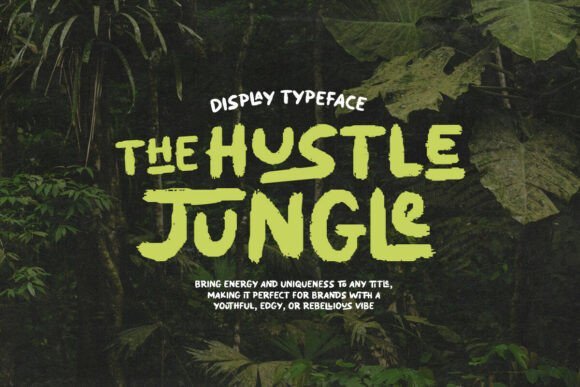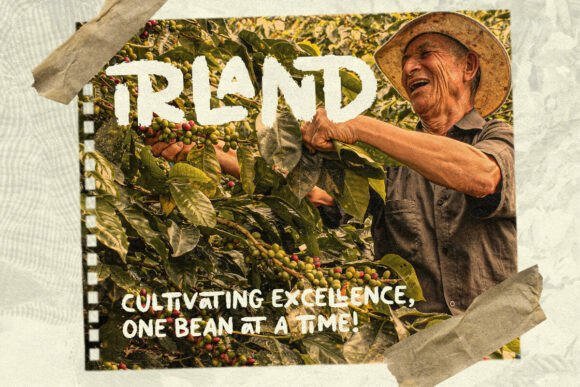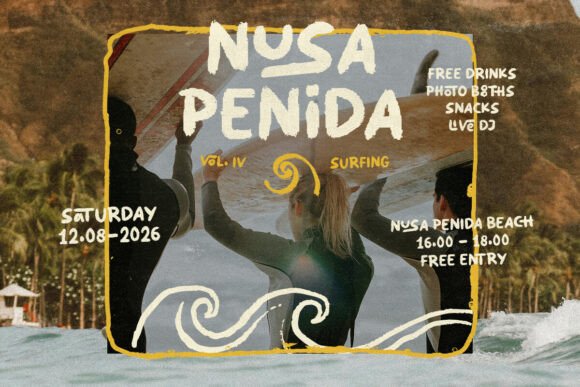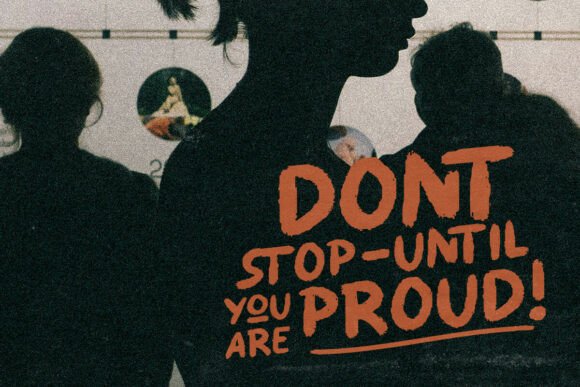
The Ultimate Rebellion in Typography: Introducing the Hustle Jungle Font
Have you ever found yourself scribbling down a wild idea on a piece of paper, the words spilling out of your pen as if they were bursting to get free? That’s the kind of raw energy that the Hustle Jungle Font embodies. This display typeface is the perfect tool for designers who want to unleash a storm of creativity and bring their brand to life.
Designed for the bold and the fearless, the Hustle Jungle Font is built for brands that aren’t afraid to take risks. With its jagged, brush-like edges, it’s the ultimate tool for streetwear labels, extreme sports graphics, and edgy music posters. By incorporating the Hustle Jungle Font into your design, you’ll be able to tap into its high-energy vibe and create a visual impact that demands attention.
Hustle Jungle Font Key Features
- Font Family: Hustle Jungle, a unique and energetic script font.
- Character Count: 300+ characters, including uppercase and lowercase letters, numbers, and punctuation marks.
- Unique Characteristics: The Hustle Jungle font features a dynamic, handwritten feel with a mix of bold and delicate strokes, making it perfect for creative and energetic designs.
Hustle Jungle Font Review
Overall, I’m impressed with the ✨ unique aesthetic of Hustle Jungle Font. It’s perfect for projects that need a touch of tropical vibes and a dash of playfulness. The font’s bold lines and eclectic style make it stand out from more traditional sans-serif fonts.
- ⚠️ Not suitable for formal or professional projects: The font’s playful style might not be suitable for projects that require a more serious or formal tone.
Despite these limitations, I think Hustle Jungle Font is a great addition to any designer’s toolkit. It’s perfect for projects that need a fun and energetic vibe, and it’s easy to use even for designers who are new to typography.
Use the Hustle Jungle Font for designs that require a bold, adventurous feel. This font is perfect for:
1. Travel brochures and adventure tourism websites.
2. Fitness and wellness branding.
3. Outdoor gear and apparel advertising.
Alternative Fonts to Hustle Jungle Font
The Great Vibes Font is a modern, cursive script font that is perfect for creating a fun and energetic vibe. It’s ideal for use in headings, titles, and quotes. It’s more refined and elegant compared to Hustle Jungle Font, which is more playful and bold.
The Playfair Display Font is an elegant, high-end font that is perfect for creating a luxurious and sophisticated look. It’s ideal for use in headings, titles, and body text. It’s more formal and refined compared to Hustle Jungle Font, which is more casual and playful.
The Alex Brush Font is a handwritten, cursive script font that is perfect for creating a personal and creative vibe. It’s ideal for use in headings, titles, and quotes. It’s more subtle and understated compared to Hustle Jungle Font, which is more bold and attention-grabbing.
Rock Salt Font
The Rock Salt Font is a distressed, vintage-inspired font that is perfect for creating a rugged and edgy look. It’s ideal for use in headings, titles, and body text. It’s more rough and textured compared to Hustle Jungle Font, which is more smooth and polished.